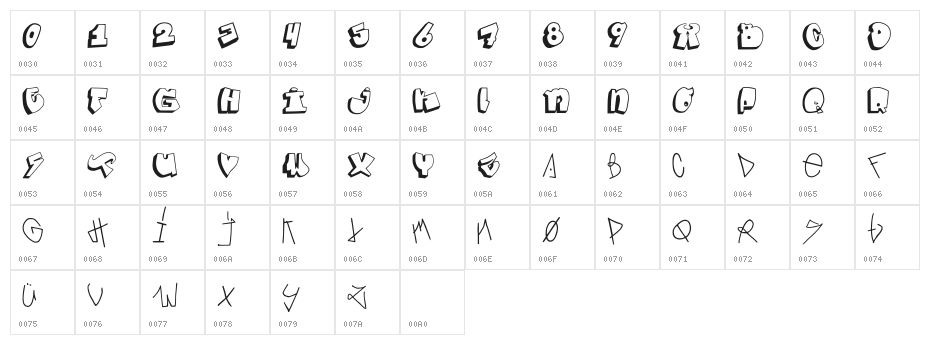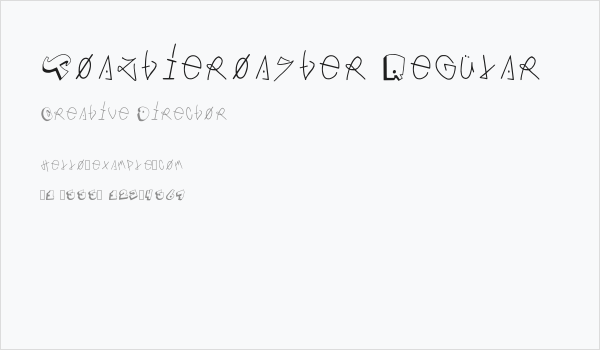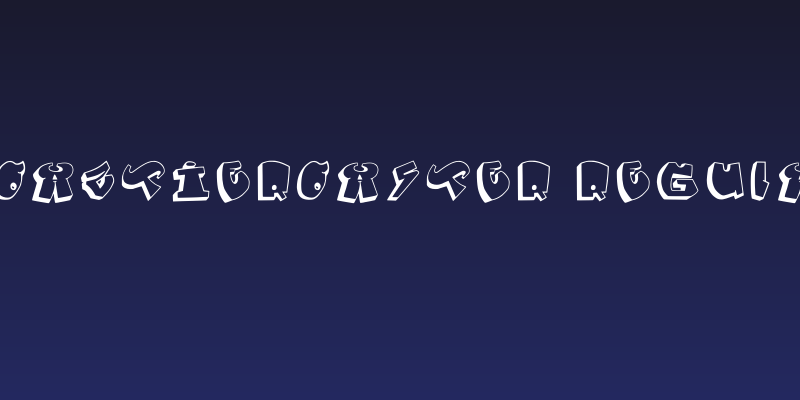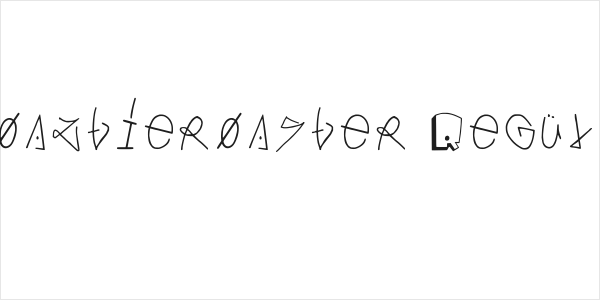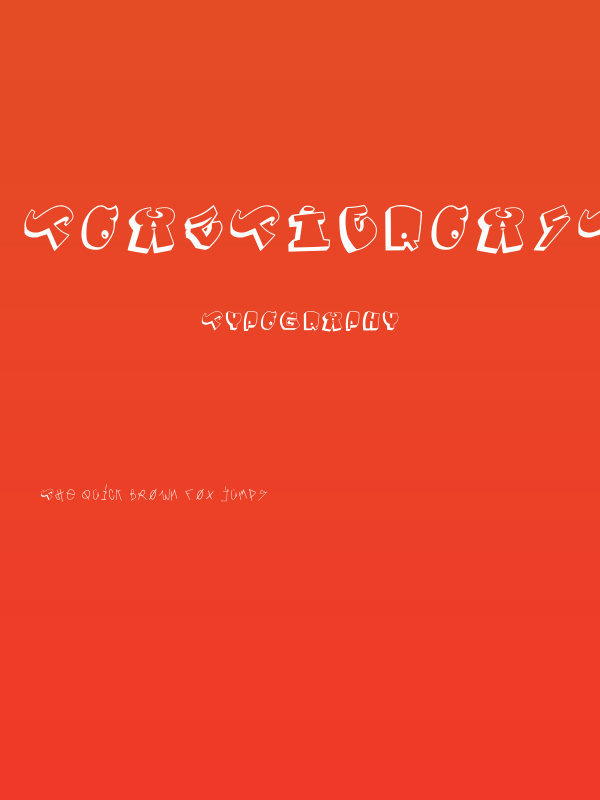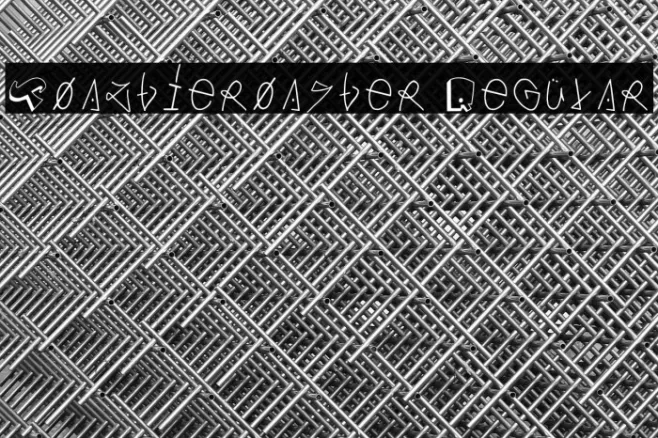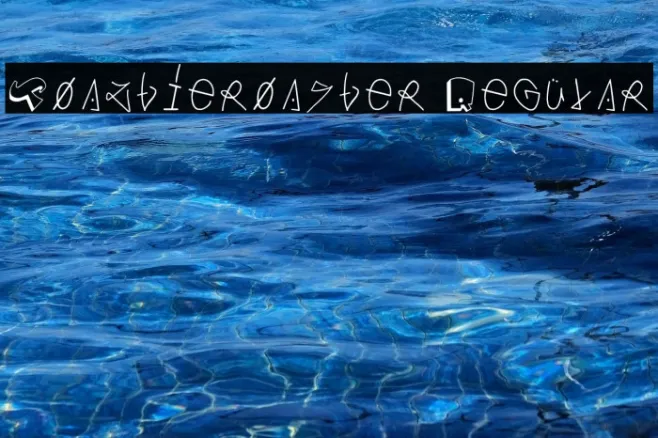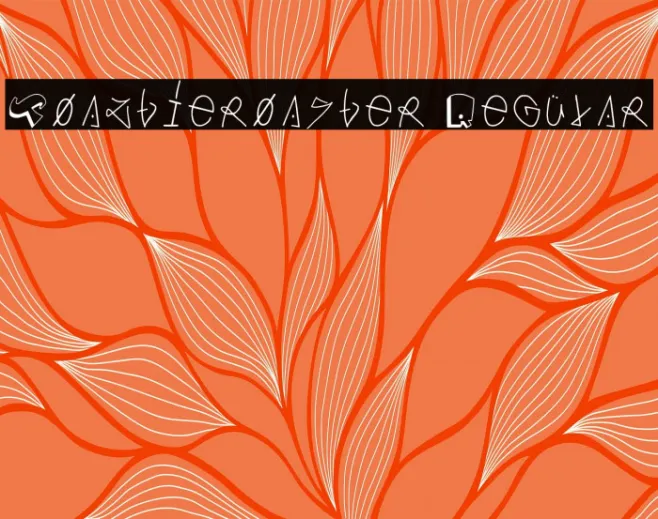
Toaztieroaster Regular Font
Toaztieroaster Regular Description
This font features a playful and quirky design with a mix of bold, irregular shapes and thin, angular strokes. The uppercase letters are characterized by thick outlines and a cartoonish style, while the lowercase letters are more slender and abstract, giving a hand-drawn appearance. The numbers follow the same playful theme, with exaggerated curves and angles. Special characters maintain the whimsical aesthetic, adding to the font's unique personality. Overall, this font exudes a sense of fun and creativity, making it stand out in any design project.
| Proposed Projects | Ideal for children's books, comic strips, playful branding, and creative posters. |